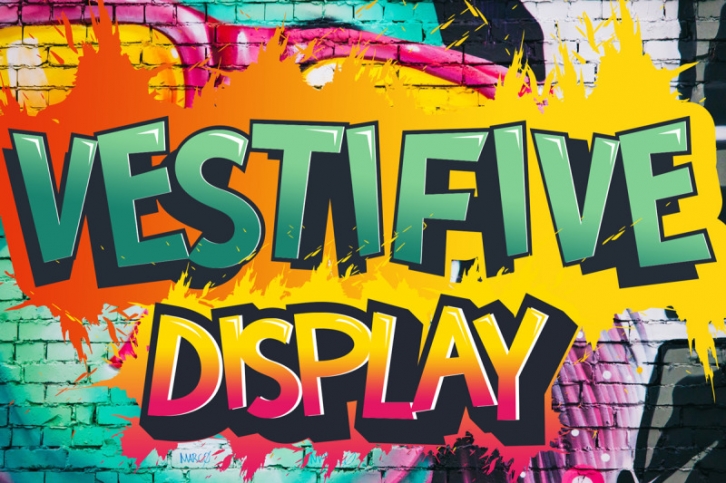
Vestifive is a bold, urban styled display font. Add this assertive font to your designs and make them stand out! This font is PUA encoded which means you can access all of the glyphs and swashes with ease! (please type the preview to see if I have what you need!)